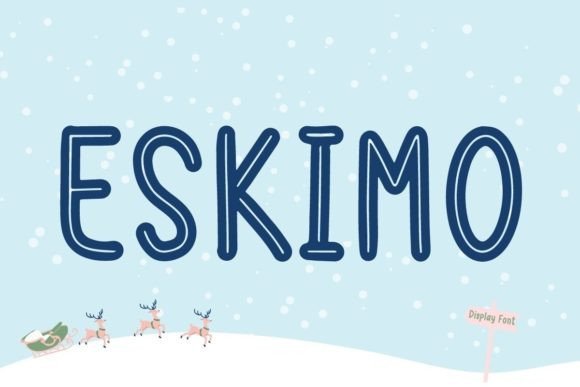
The Perfect Hand-Drawn Touch: Unlocking the Magic of Eskimo Font
Remember the joy of doodling in your notebook as a child? The scribbles, the squiggles, the endless loops of imagination? For many of us, those carefree moments sparked a lifelong love affair with creativity. As we grow older, our tools may change, but the desire to add a personal touch to our work remains the same. That’s where the Eskimo Font comes in – a playful, hand-lettered font that captures the essence of childhood wonder.
Perfect for children’s activities, school projects, branding, invitations, blogs, and planners, the Eskimo Font adds a charming, authentic touch to any project. Its value lies in its versatility and ease of use, making it a go-to choice for designers seeking to inject a little personality into their work.
Eskimo Font Key Features
- Font Family: Eskimo is a sans-serif font family that comes in several weights, including light, regular, bold, and extra bold.
- Character Set: Supports a wide range of languages, including Latin, Cyrillic, and Greek alphabets, as well as many non-Latin scripts.
- Unique Characteristics: Features a distinctive, modern design with clean lines and a friendly feel, making it suitable for a wide range of applications, from body text to display headings.
Eskimo Font Review
I recently had the chance to work with the Eskimo Font, and I’m excited to share my honest review with you.
The Eskimo Font has some great features that make it a solid choice for designers:
- Unique and modern design: The font’s icy theme gives it a refreshing look that’s perfect for projects with a winter or arctic twist.
- High legibility: The font is easy to read, even at smaller sizes, making it a great choice for body text or headlines.
- Great for creative projects: The Eskimo Font’s playful and adventurous vibe makes it perfect for creative projects, like children’s books, magazines, or advertising campaigns.
While the Eskimo Font has many great features, there are a few limitations to consider:
- Not suitable for formal projects: The font’s playful design may not be suitable for formal projects, like business reports or academic papers.
- Limited language support: The font may not support all languages, so be sure to check compatibility before using it for multilingual projects.
The Eskimo Font is a great choice for designers who want a unique and modern font for their creative projects. While it may not be suitable for all types of projects, its high legibility and playful design make it a solid choice for designers who want to add some excitement to their work.
Tips for Getting the Most Out of Eskimo Font
Use Eskimo Font to create unique and visually appealing designs. Pair it with other fonts to create contrast and add visual interest. Experiment with different font sizes and styles to achieve the desired effect.
Eskimo Font is ideal for use in modern and minimalist designs. Use it for headings, titles, and other prominent text elements. It’s also suitable for use in digital products, such as mobile apps and websites.